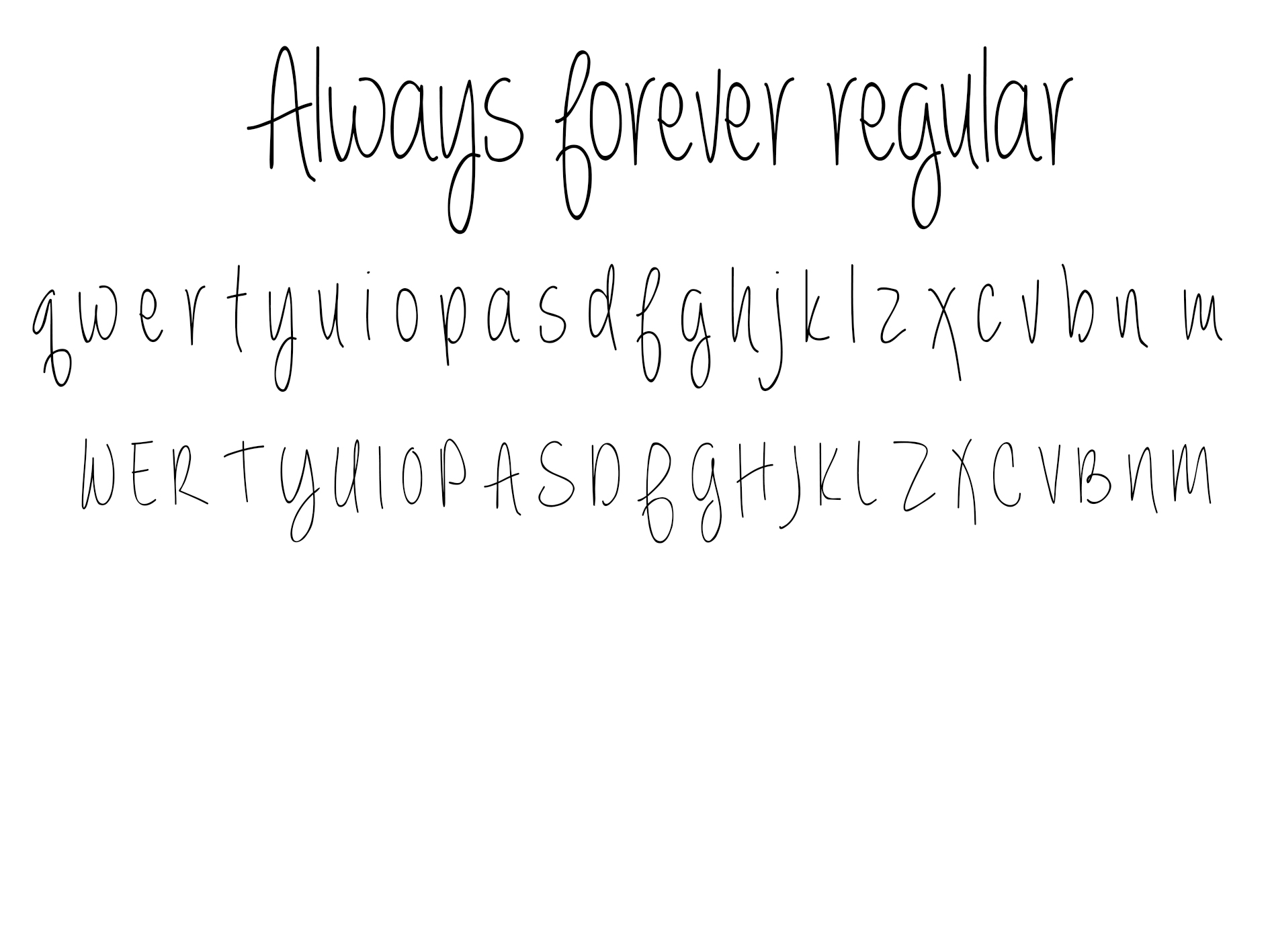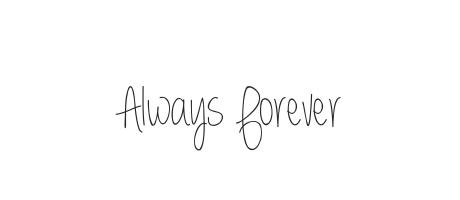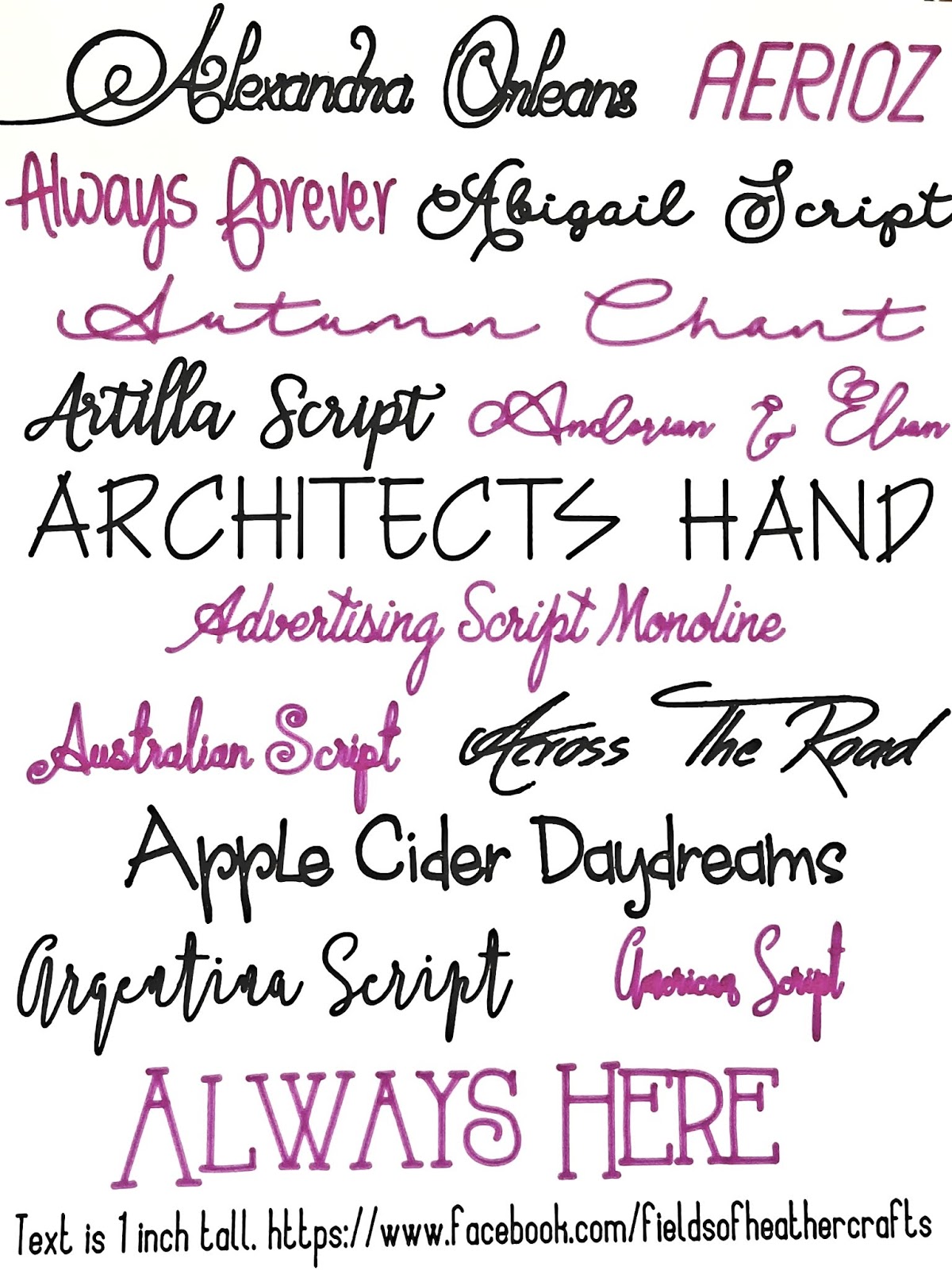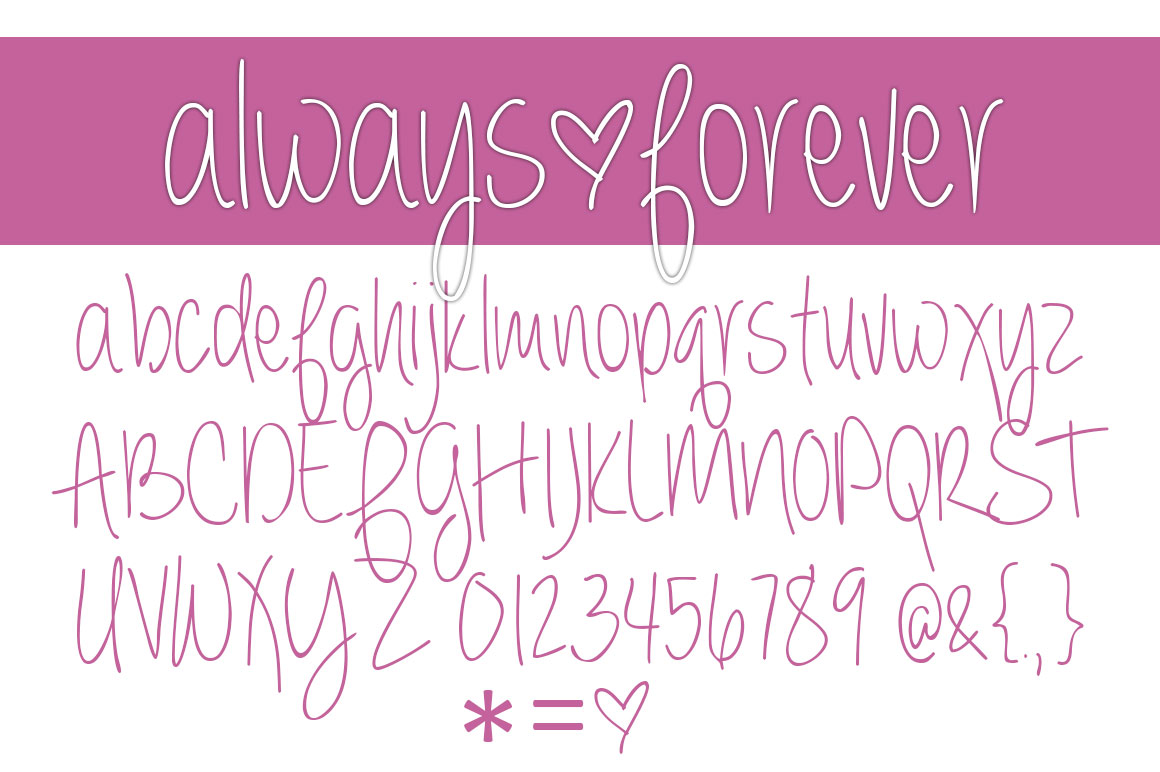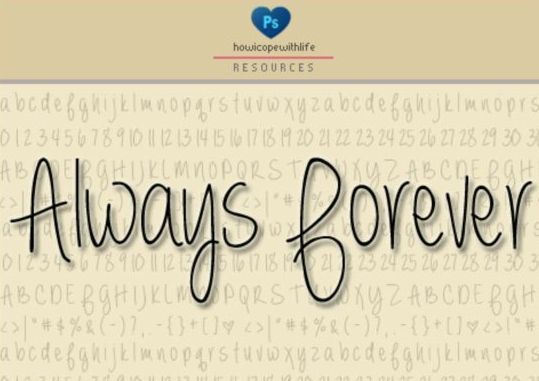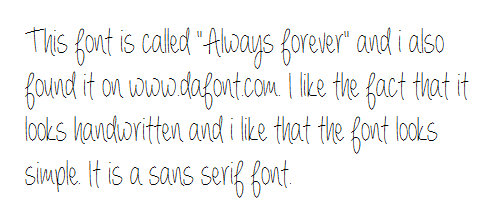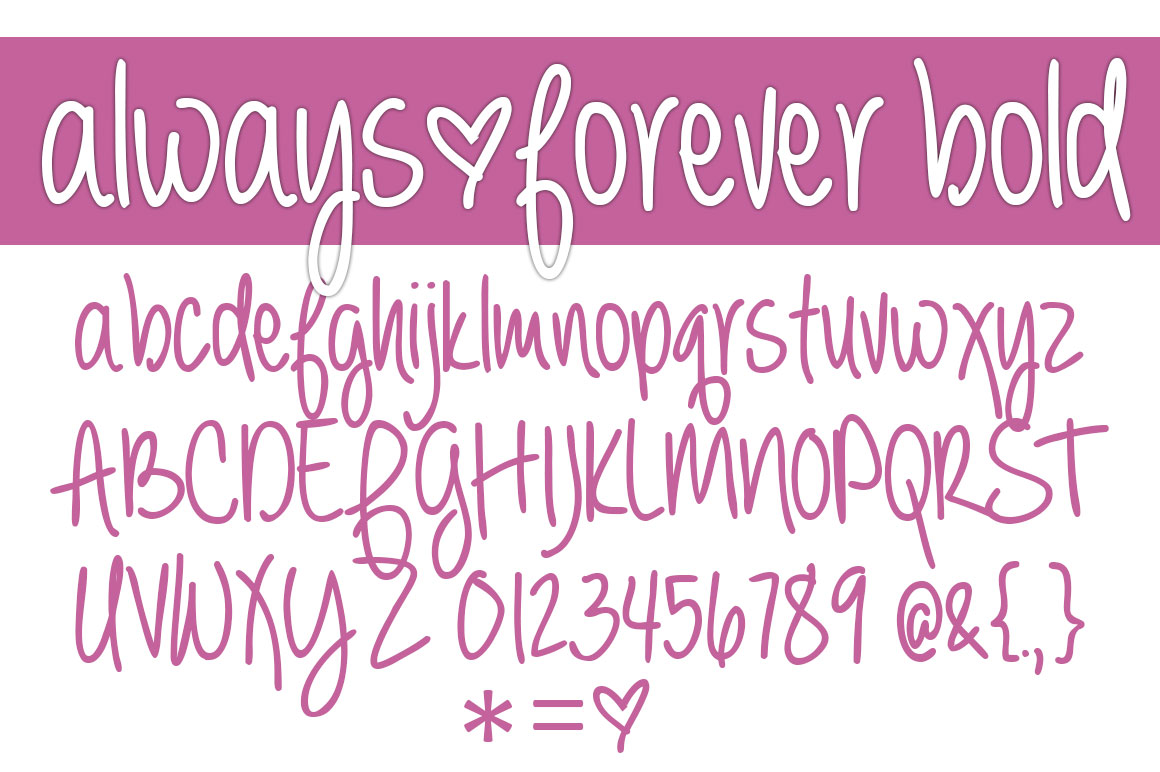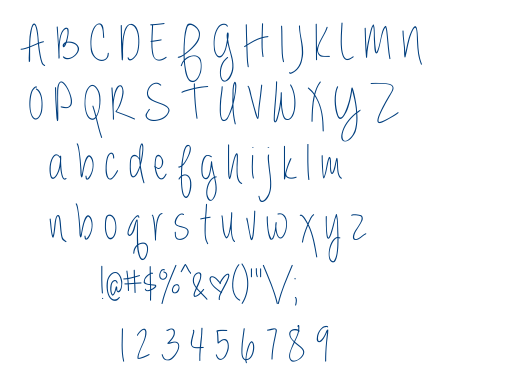
Always Forever Font
Always forever font. Always Forever Bold Font Designed by Brittney Murphy Design Download Always Forever Bold for Windows and Mac Category Handwritten. License Free for personal useThis is a preview font for testing, you can purchase its full version at http//brittneymurphydesigncom/downloads/alwaysforever/. Always Forever Font 1001 Free Fonts offers a huge selection of free fonts Download free fonts for Windows and Macintosh.
Always Forever Font Family by Brittney Murphy Design Finish Purchase The quick brown fox jumps over the lazy dog A 24pt A 36pt A 48pt A 72pt Always Forever ttf (400) About the Product Always forever is a teenageinspired handwritten font that’s great for both content and displays. Always Forever Boldttf Download @fontface Donate to author s Script. Home › Script › Handwritten › Always forever font June 23, 19 by Free Fonts Leave a Comment Free for personal use only We collect and share best free fonts from the web Fonts are licensed to personal and commercial use, so please check EULA before using.
Download free Always forever Font by Brittney Murphy Design from Fontslycom Always forever has 2 styles and Free for personal use license. Always forever is a teenageinspired handwritten font that’s great for both content and displays And angsty notes of affection there’s even a heart!. Always Forever Font Family by Brittney Murphy Design Finish Purchase The quick brown fox jumps over the lazy dog A 24pt A 36pt A 48pt A 72pt Always Forever ttf (400) About the Product Always forever is a teenageinspired handwritten font that’s great for both content and displays.
The font Always * forever is also perfect for branding projects, Homeware Designs, Product packaging – or simply as a stylish text overlay to any background image Download free font Always * forever. Always Forever font family is a handwritten font family with 2 styles (Regular and Bold) Created in 12, Always Forever has over 3 millions downloads world wide and has become popular on self made images for Instagram and Facebook. ♥ Just use the * to find it!.